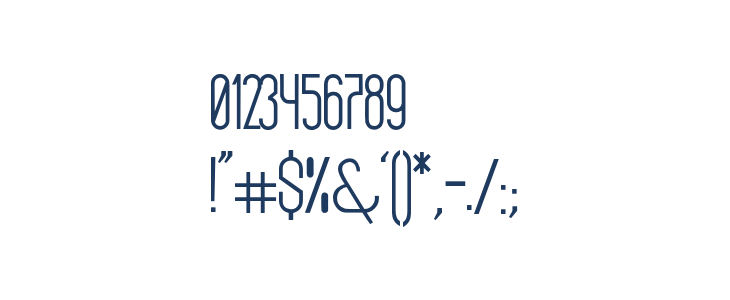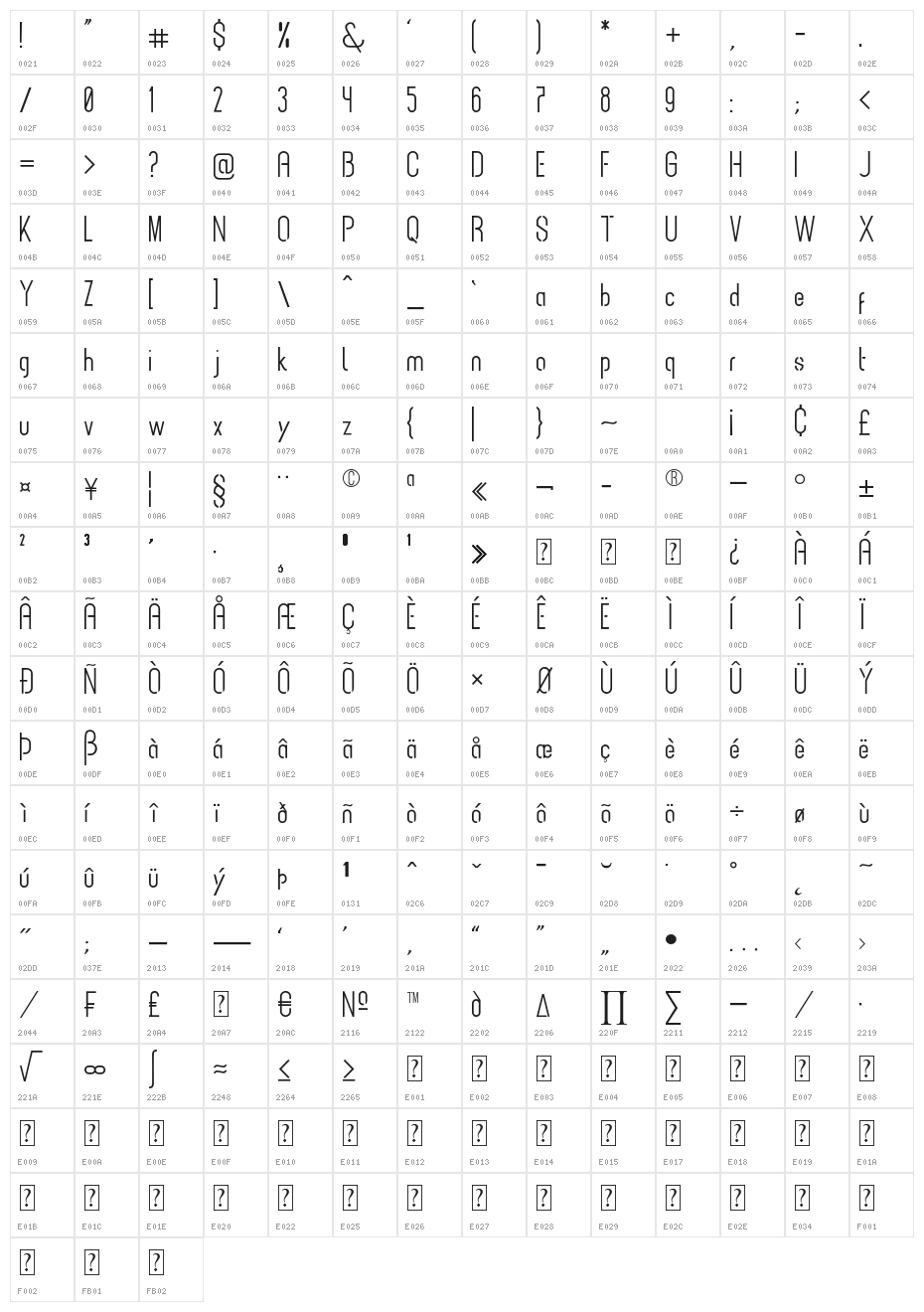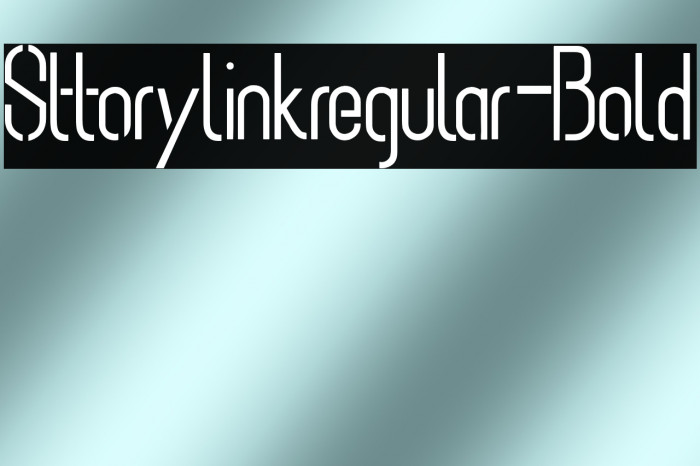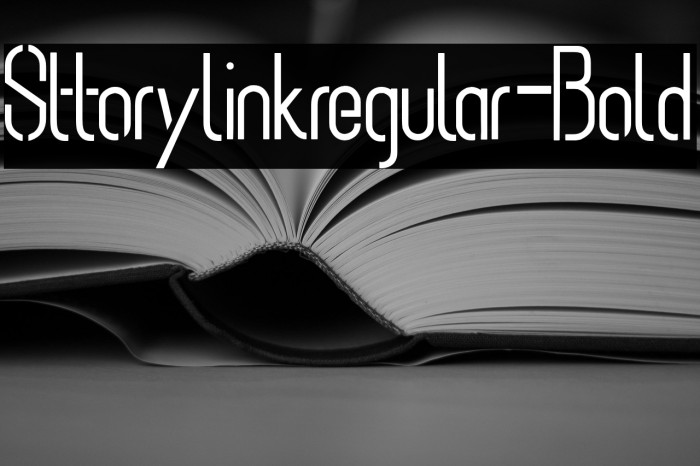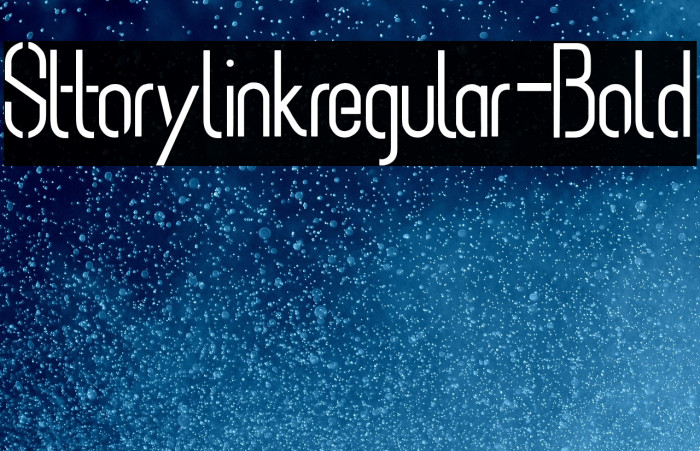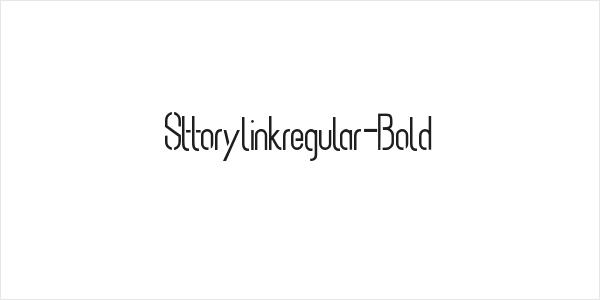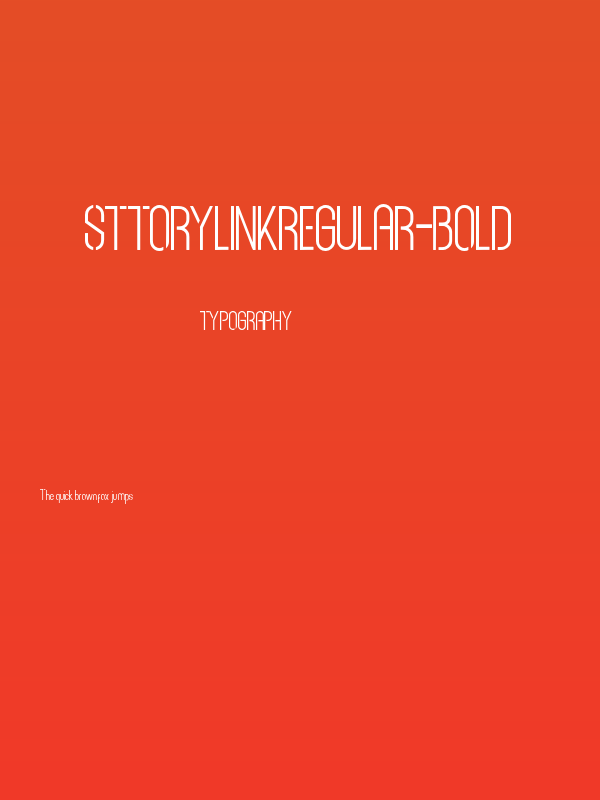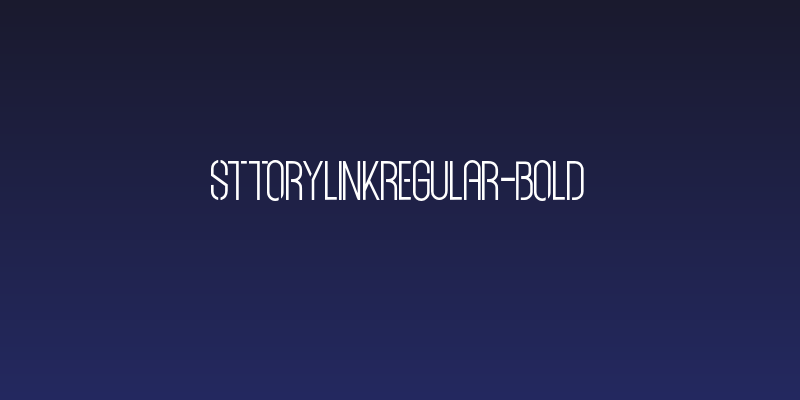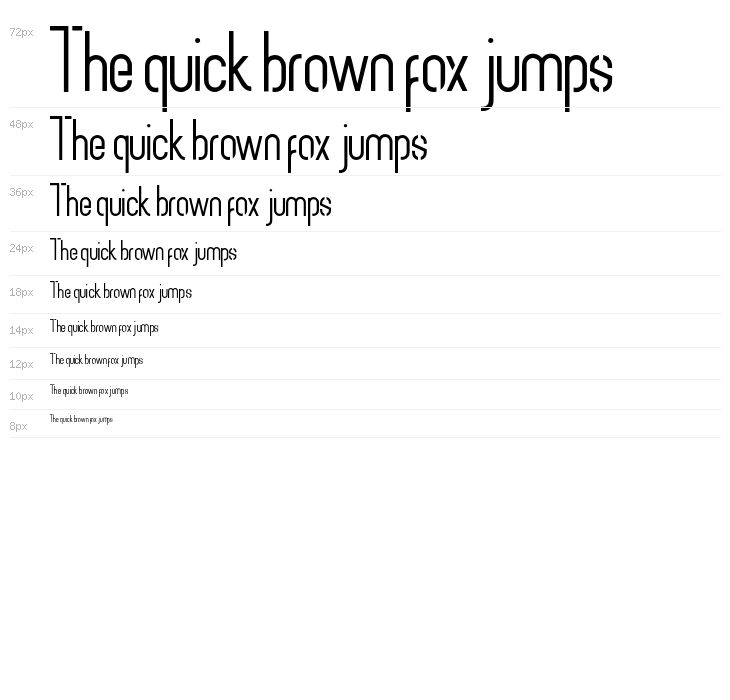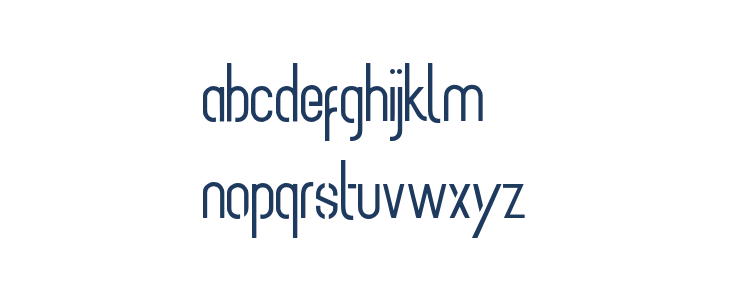
Sttorylinkregular-Bold Font
Sttorylinkregular-Bold Description
This font features a modern and sleek design with elongated, narrow characters that give it a distinctive and stylish appearance. The uppercase letters are tall and slightly condensed, while the lowercase letters maintain a consistent height that complements the overall design. The numerals are uniform in height and align well with the uppercase letters, providing a cohesive look. Special characters are designed with the same narrow and elongated style, ensuring consistency across all glyphs. The font's clean lines and geometric shapes make it suitable for contemporary design projects.